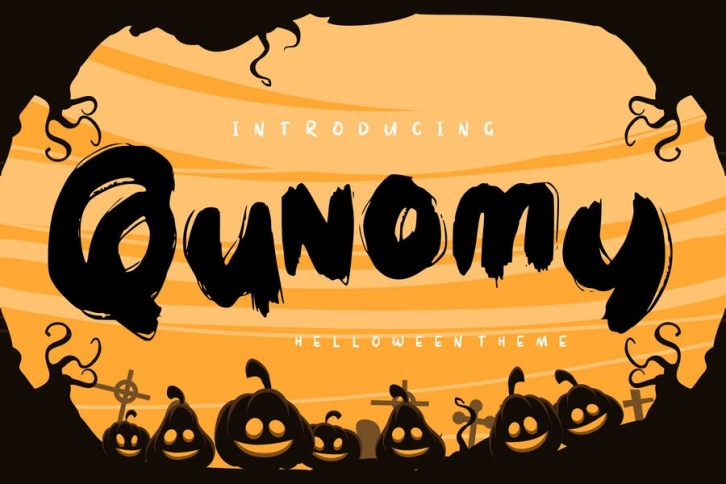
Qunomy | Helloween Font Theme with a display style, So beautiful on invitation like greeting cards, branding materials, business cards, quotes, posters, and more!
- Alternates and Ligatures